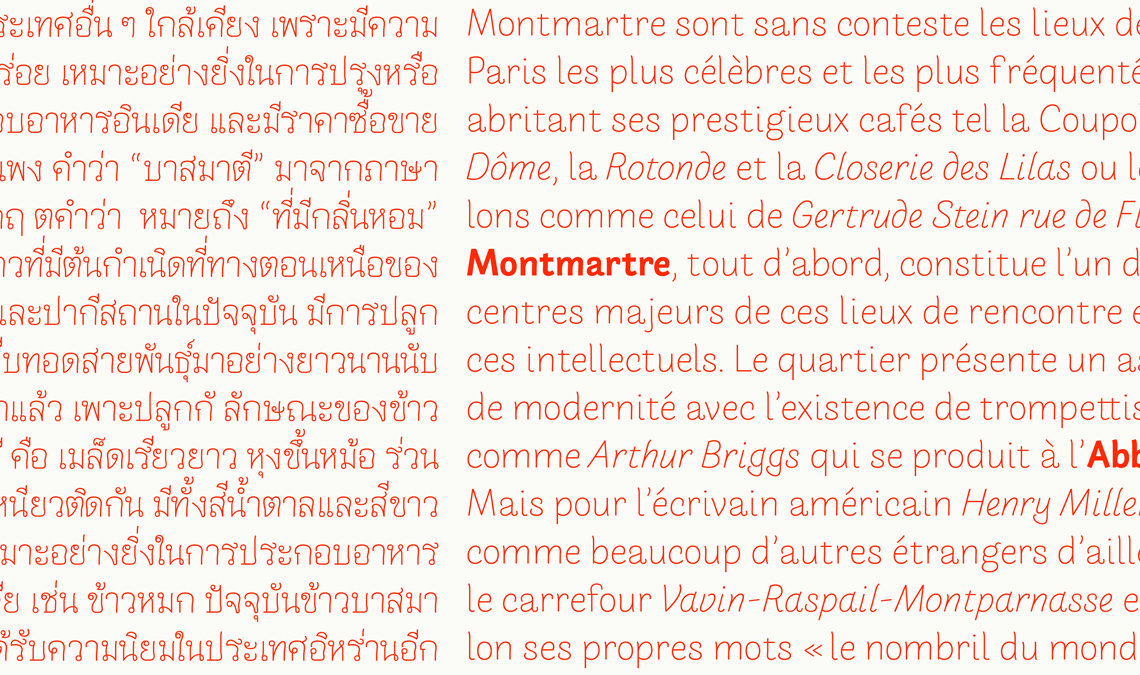
Sneak Peek: Arlette
Next time you hear from us, you’ll also be seeing progress in the form of the new Arlette family. The Barcelona-based type design studio Letterjuice, run by Pilar Cano and Ferran Milan, partnered with TypeTogether to publish Arlette, a typeface that challenges what it means to be a sans.
Sneak Peek: Arlette, a Latin and Thai Typeface
Pilar Cano (creator of the Edita family) and Ferran Milan have created a sans serif with an experimental, organic nature that has the ability to stretch the parameters of what a sans can be. Arlette will come in Latin and Thai and is perfect for editorial design, branding, teen and young adult magazines, book covers, and a lot more.
Arlette will include eight weights in Latin and six in Thai, covering an extensive range of  use, both in text and display. In both writing systems, Arlette is surprisingly legible in small sizes and still beautiful and full of engaging details in large sizes. It’s almost time for this bold, new addition.